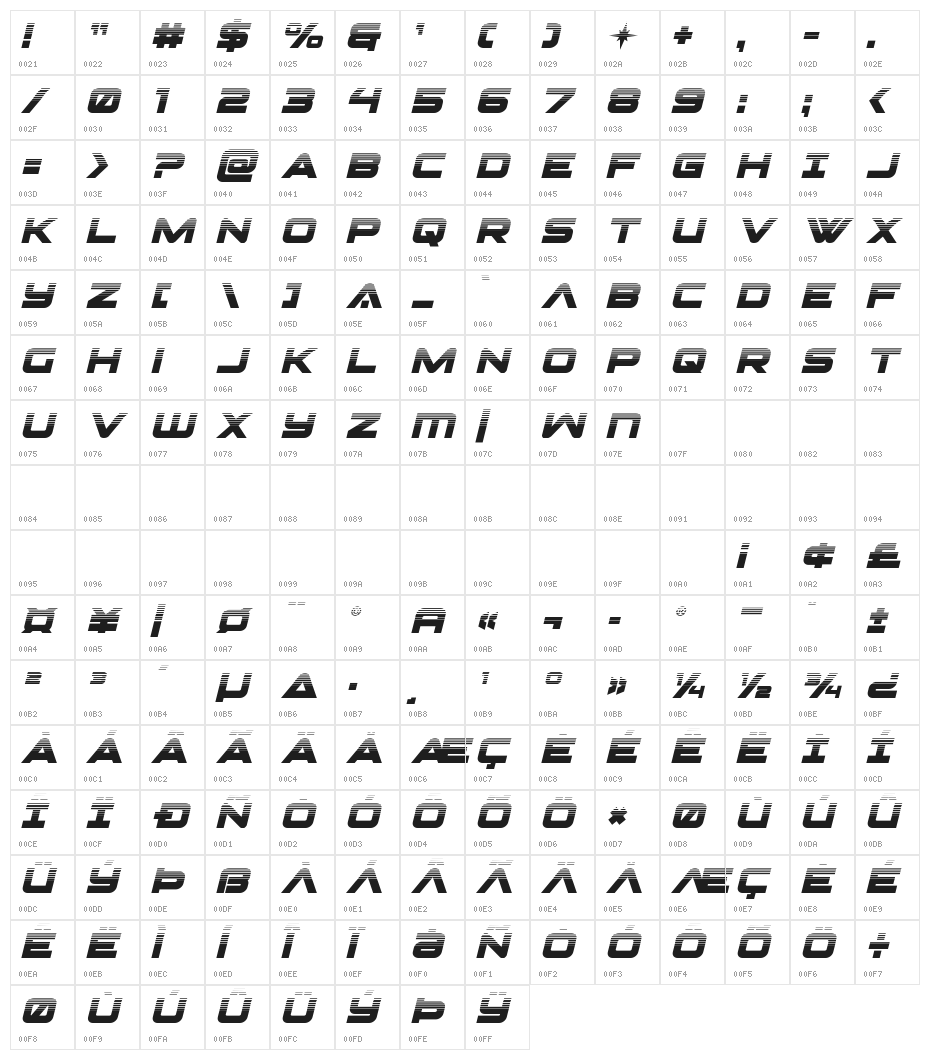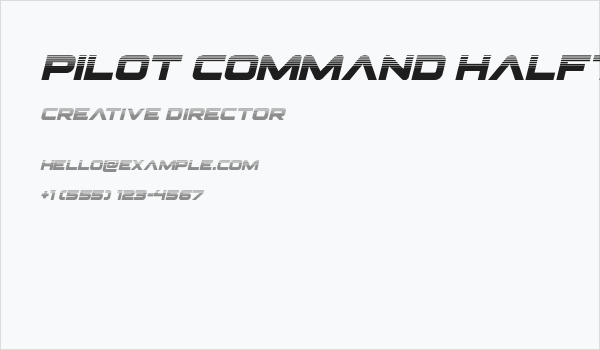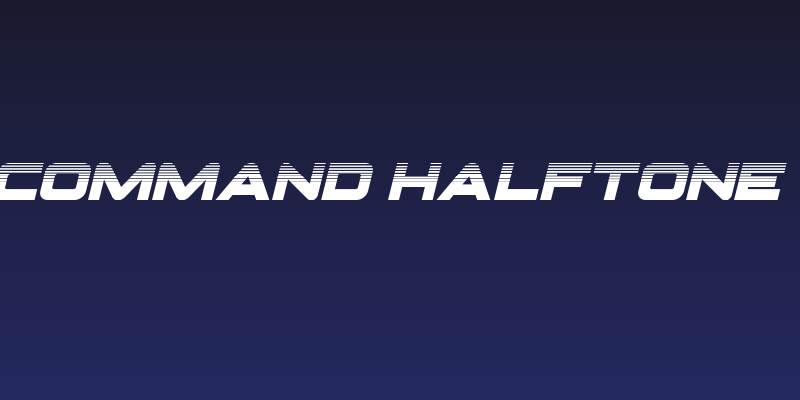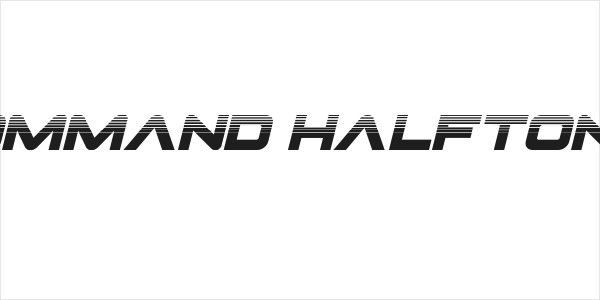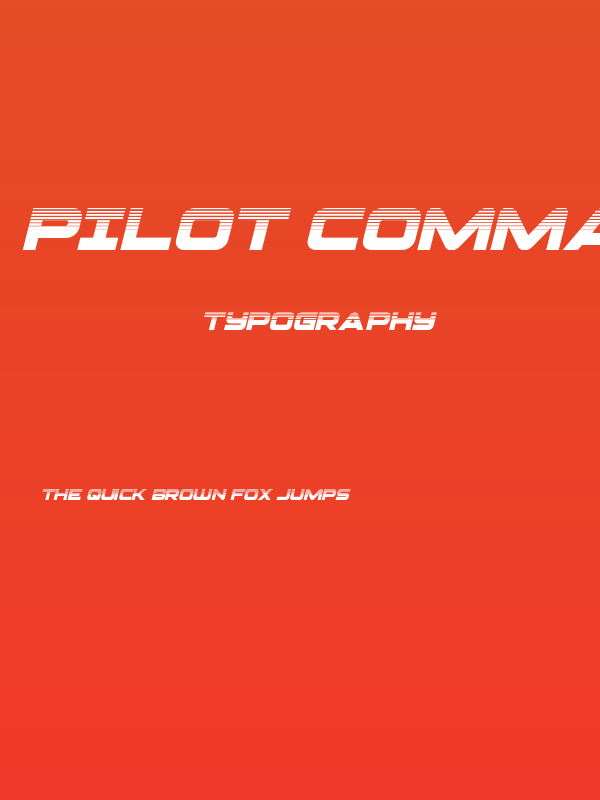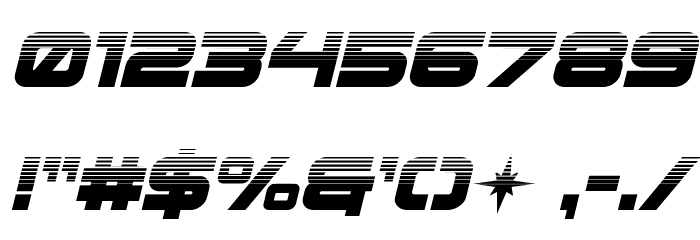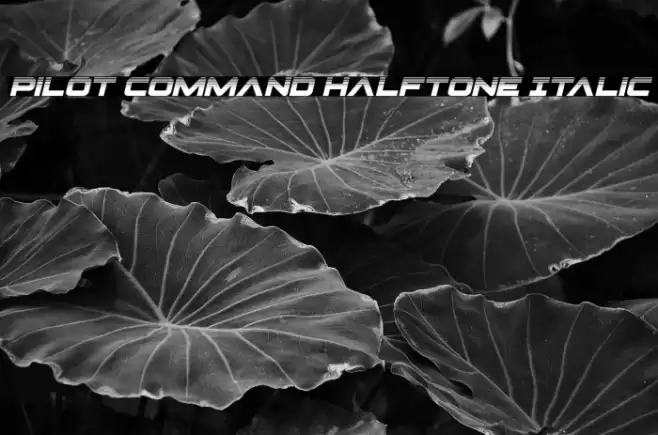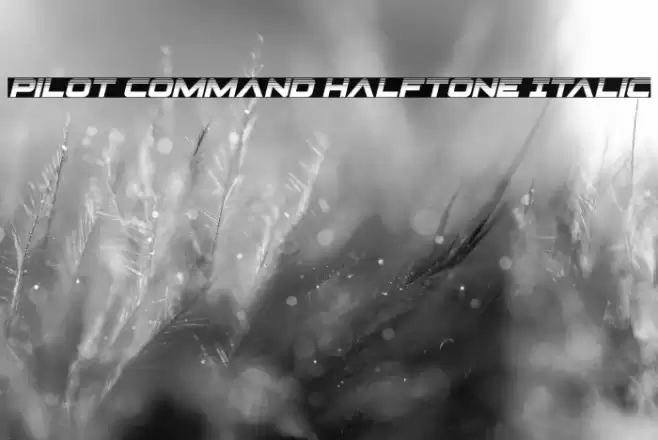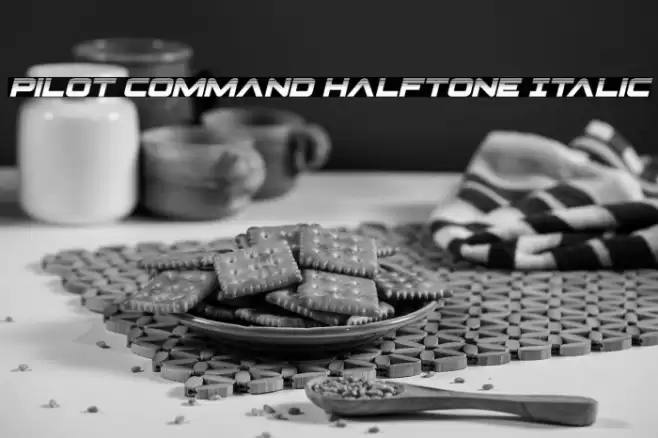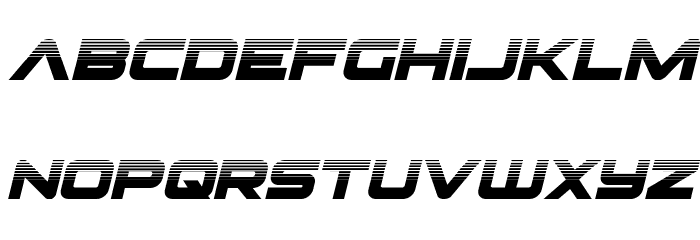
Pilot Command Halftone Italic Font
Pilot Command Halftone Italic Description
This font features a dynamic and futuristic design, characterized by its italicized and halftone style. The letters are bold and angular, with a distinctive slanted orientation that suggests movement and speed. The halftone effect adds a textured, layered appearance, giving the font a modern and technological feel. The uppercase and lowercase letters maintain a consistent style, with sharp edges and a streamlined form. The numerals and special characters are equally bold and stylized, complementing the overall aesthetic. This font is ideal for projects that require a contemporary and energetic look.